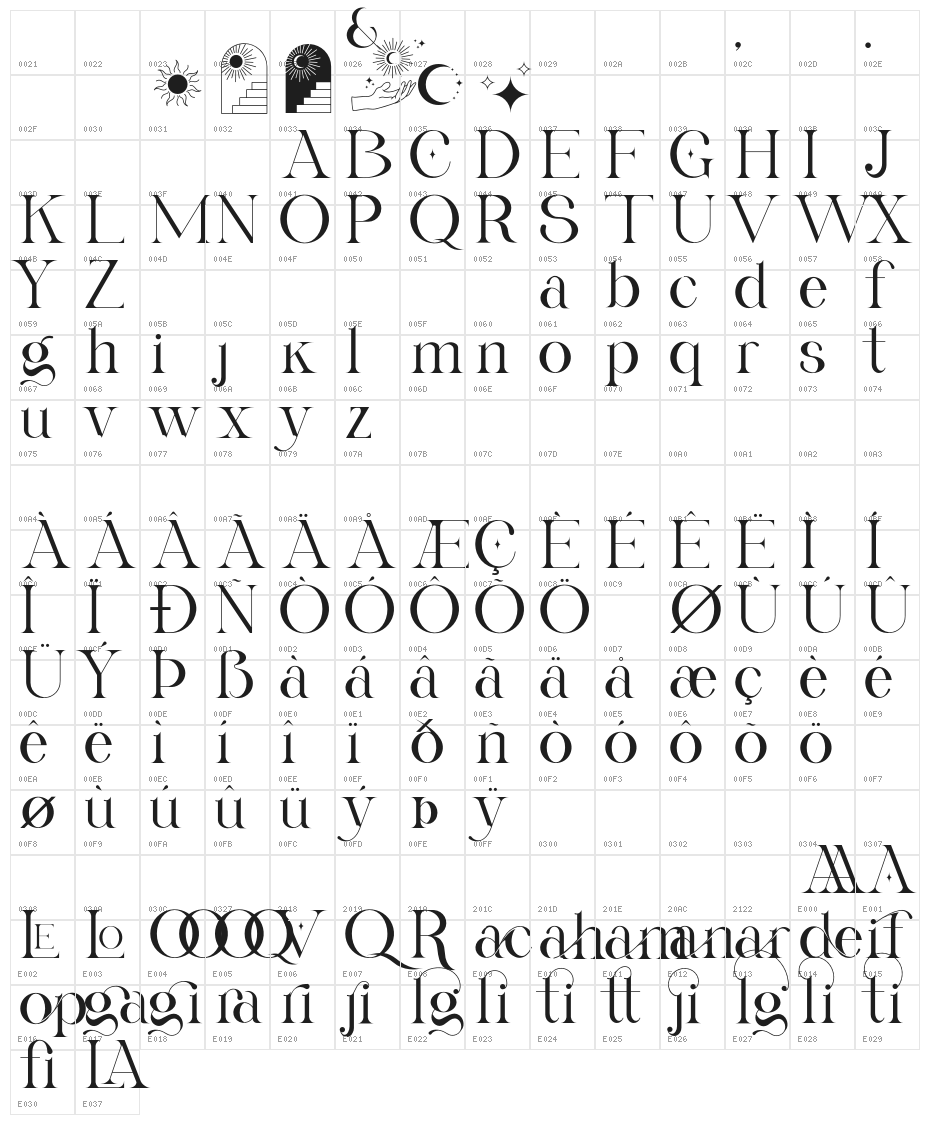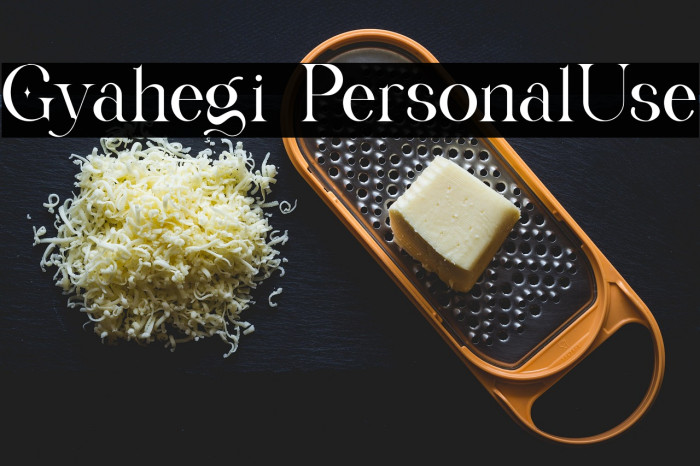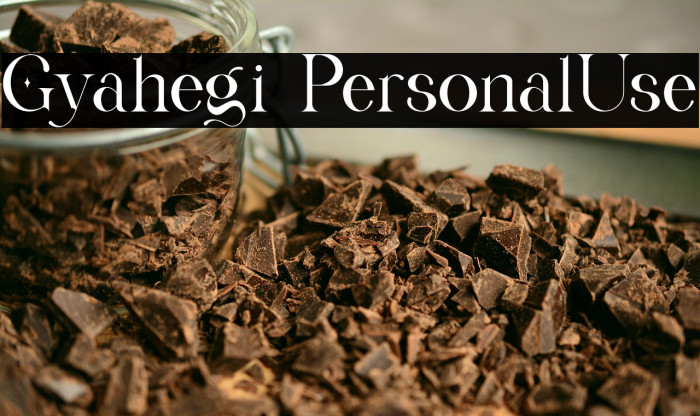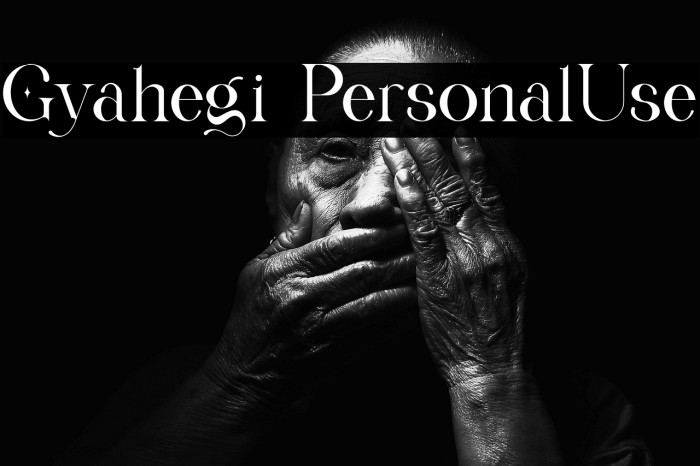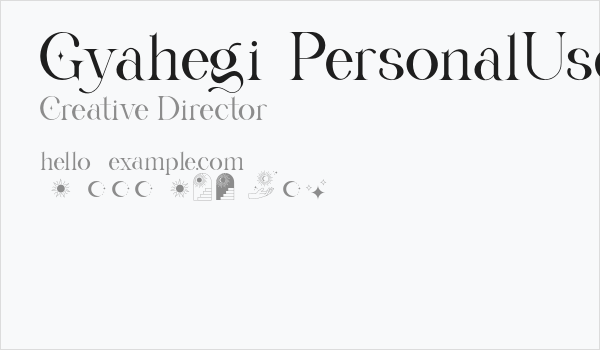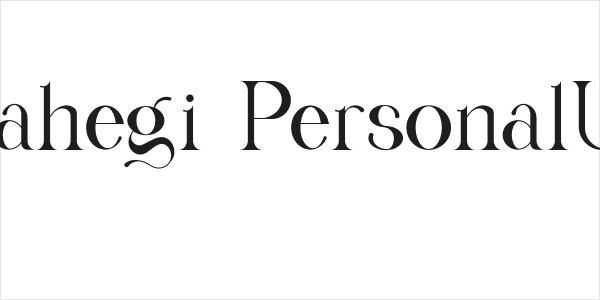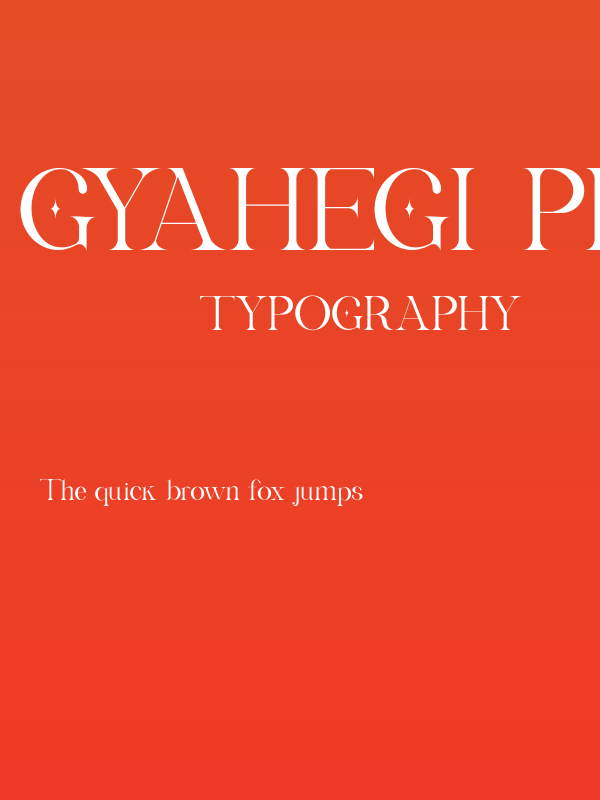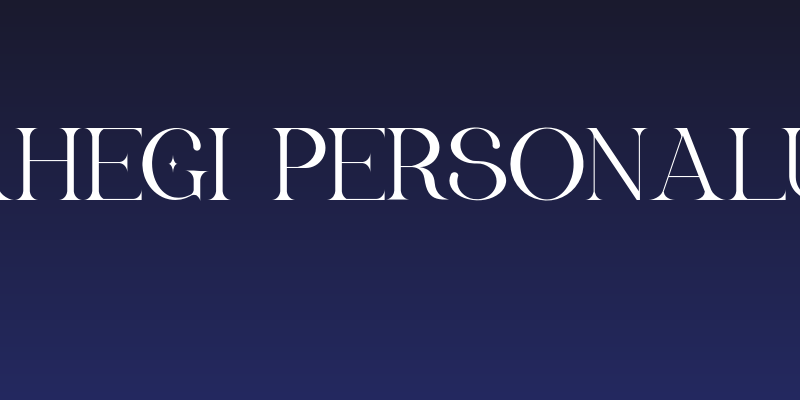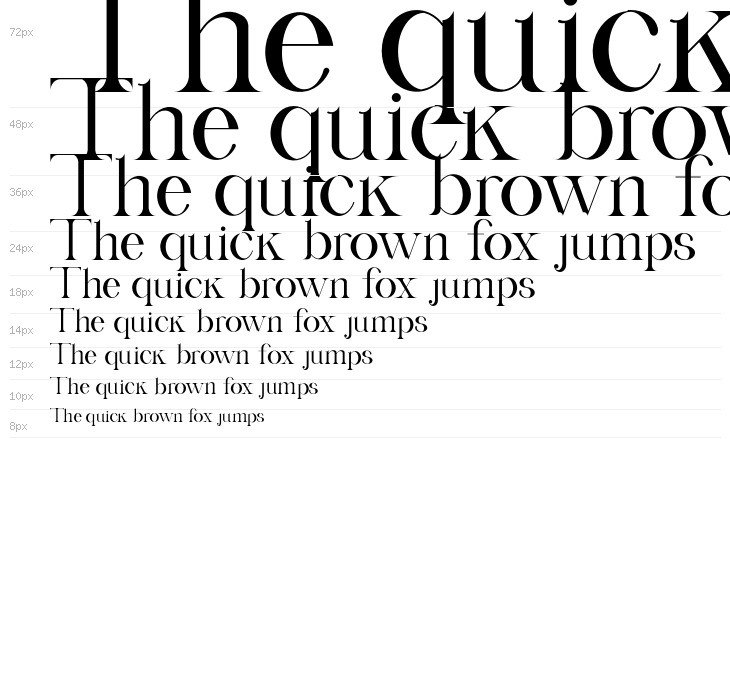
Gyahegi-PersonalUse Font
Gyahegi-PersonalUse Description
This font features a sophisticated and elegant serif style with high contrast between thick and thin strokes. The uppercase letters are characterized by sharp serifs and a refined structure, giving them a classic yet modern appearance. The lowercase letters maintain a similar elegance, with some unique flourishes that add a touch of personality. The numerals are consistent with the overall style, offering clarity and elegance. Special characters, including symbols like the ampersand, are designed with artistic flair, complementing the font's aesthetic. This font is well-suited for projects that require a touch of sophistication and elegance.
| Use Case | Headlines, Logos, Editorial Design |
| Proposed Projects | Ideal for luxury branding, editorial design, wedding invitations, and high-end packaging. |